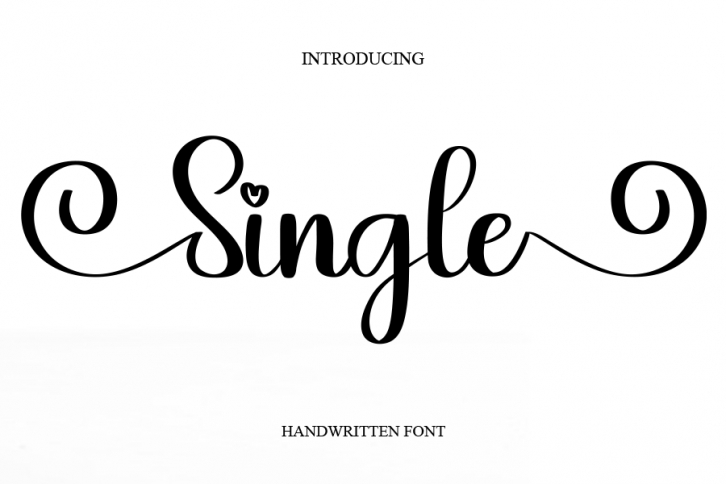
single is a fresh and natural handwritten font. No matter the topic, this font will be an incredible asset to your fonts’ library, as it has the potential to elevate any creation.